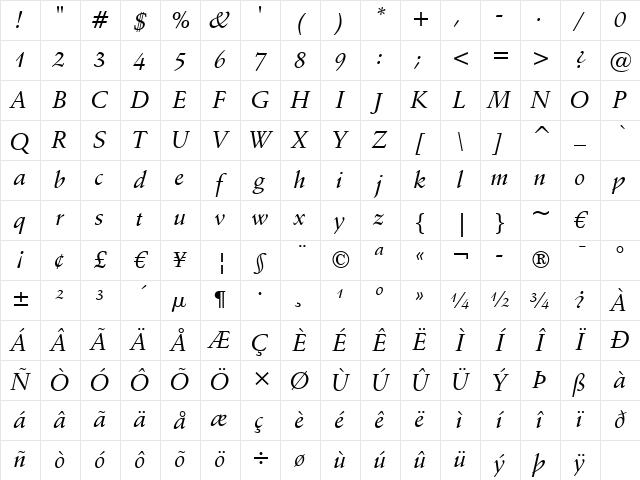
Schneidler Md BT Medium Italic
Design Context for Schneidler Md BT
Schneidler Md BT is a composed and adaptable typeface that performs quietly and consistently across a wide range of design contexts. The slanted form adds forward momentum and visual energy.
Pro Tip: Use Schneidler Md BT for emphasis, pull quotes, and subheadings where its slanted energy can add rhythm to the layout.